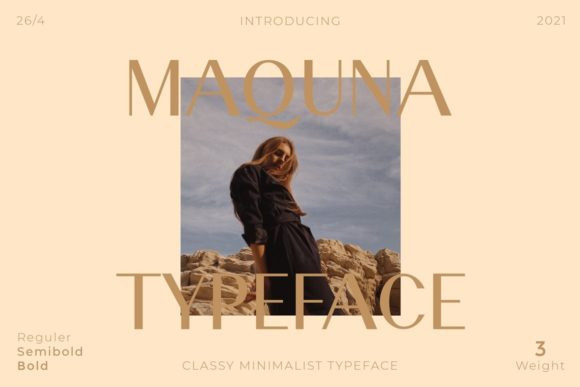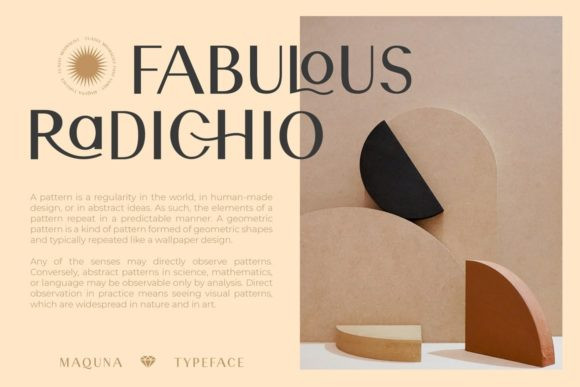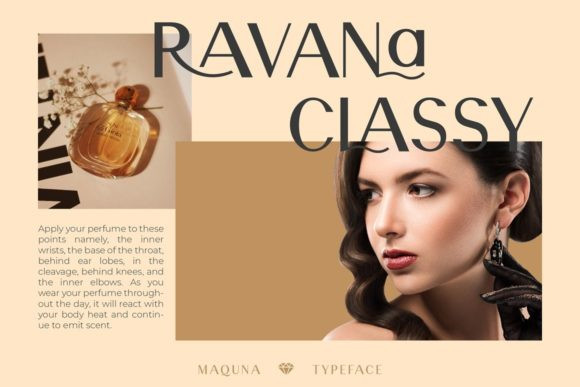
Maquna Font
Maquna FontMaquna is an elegant and distinct sans serif font. This font is PUA encoded which means you can access all of the glyphs and swashes with ease!